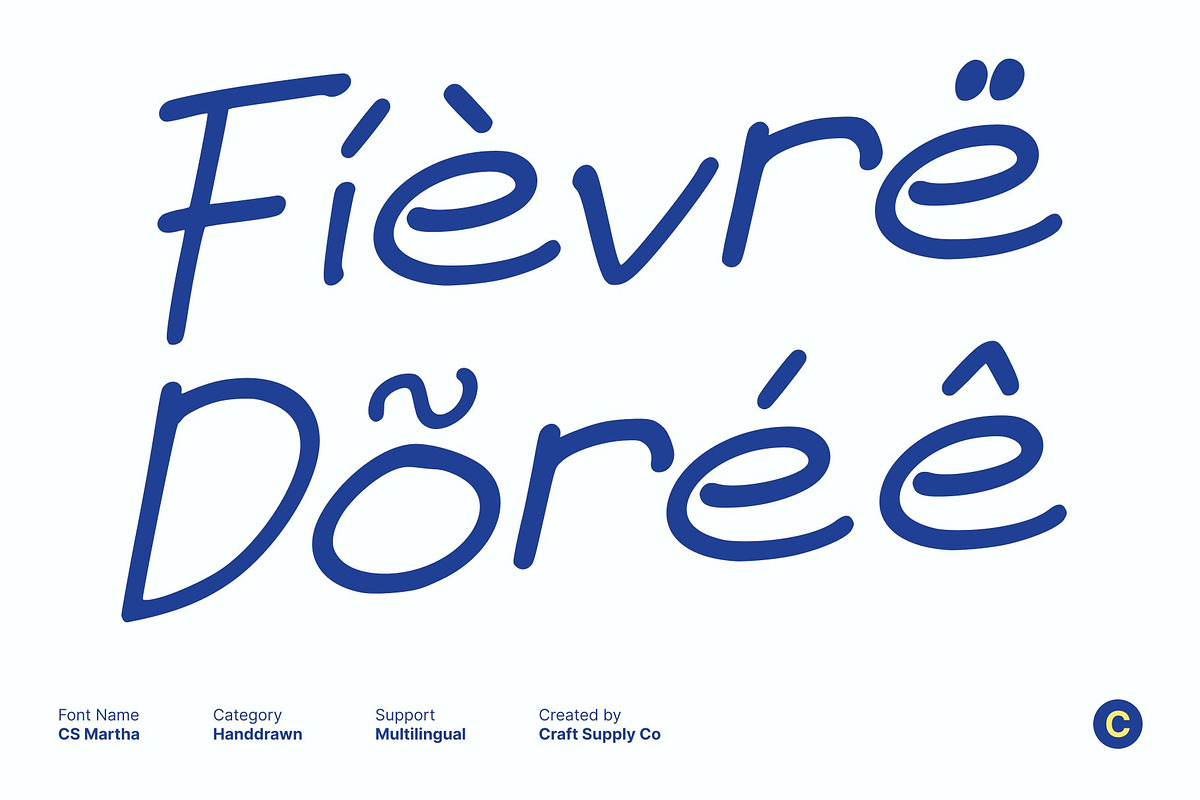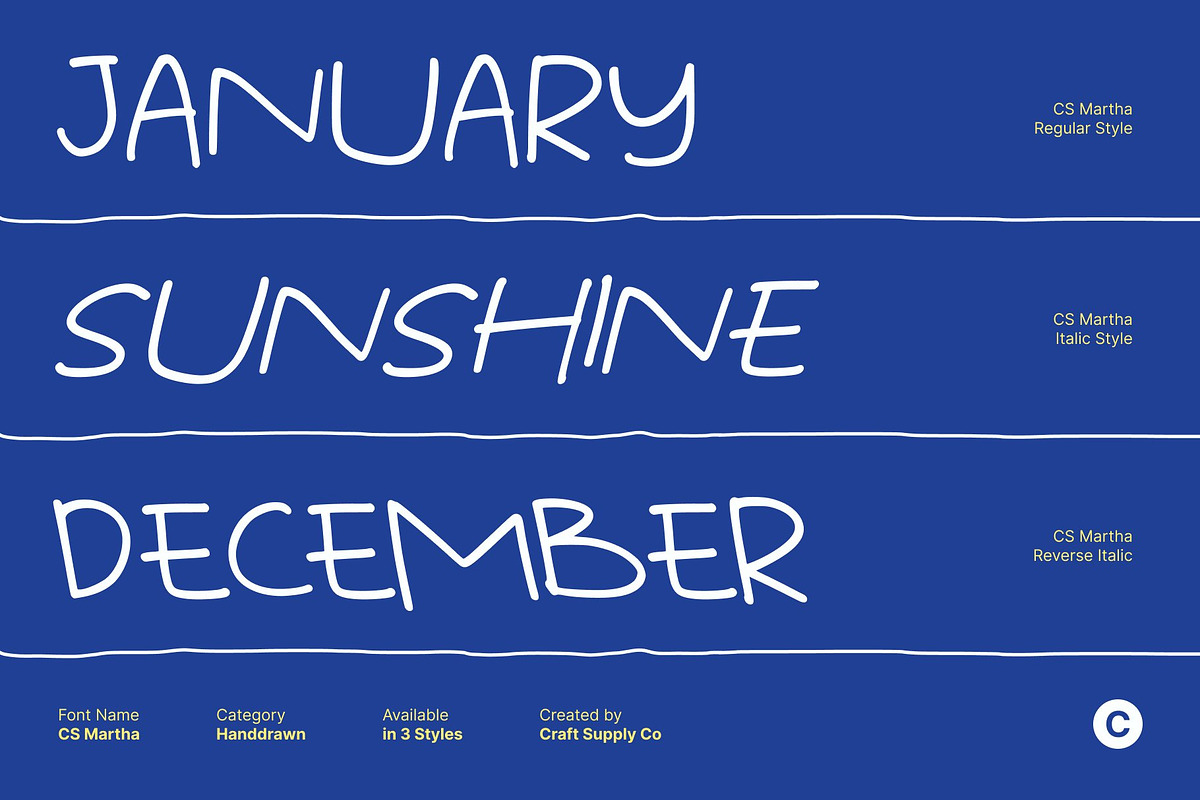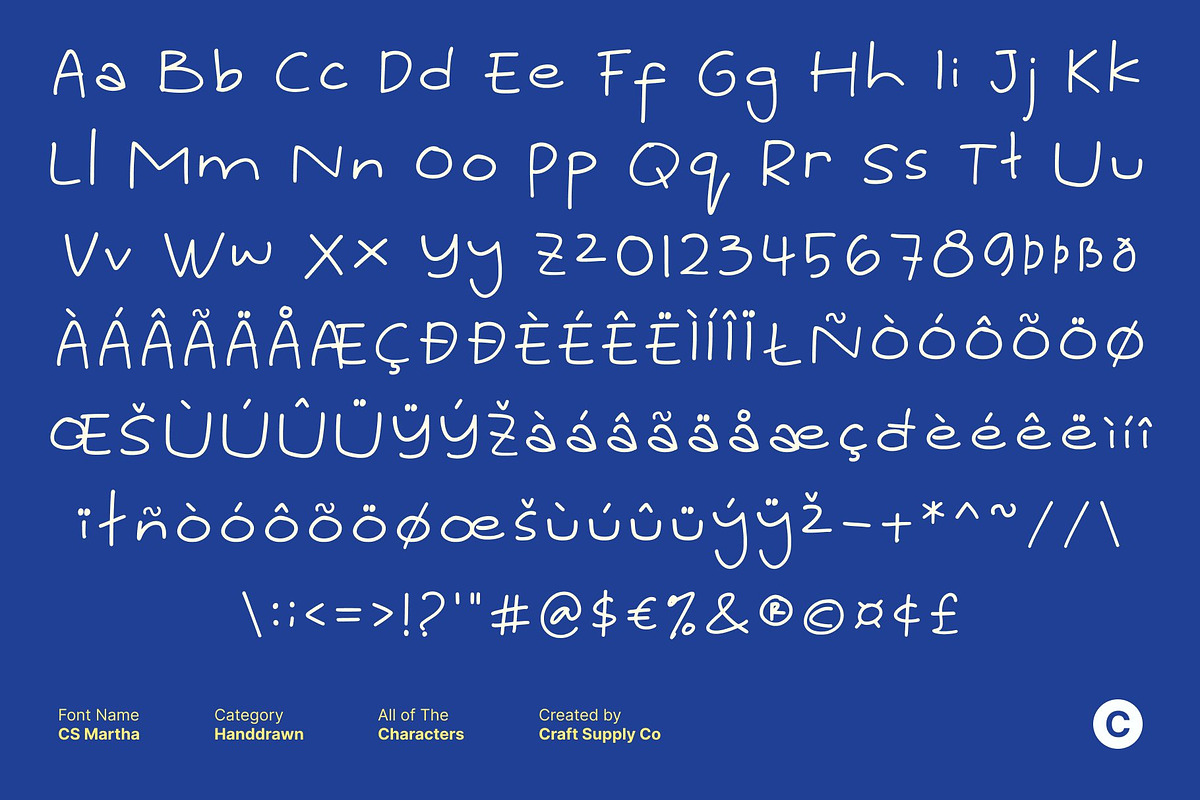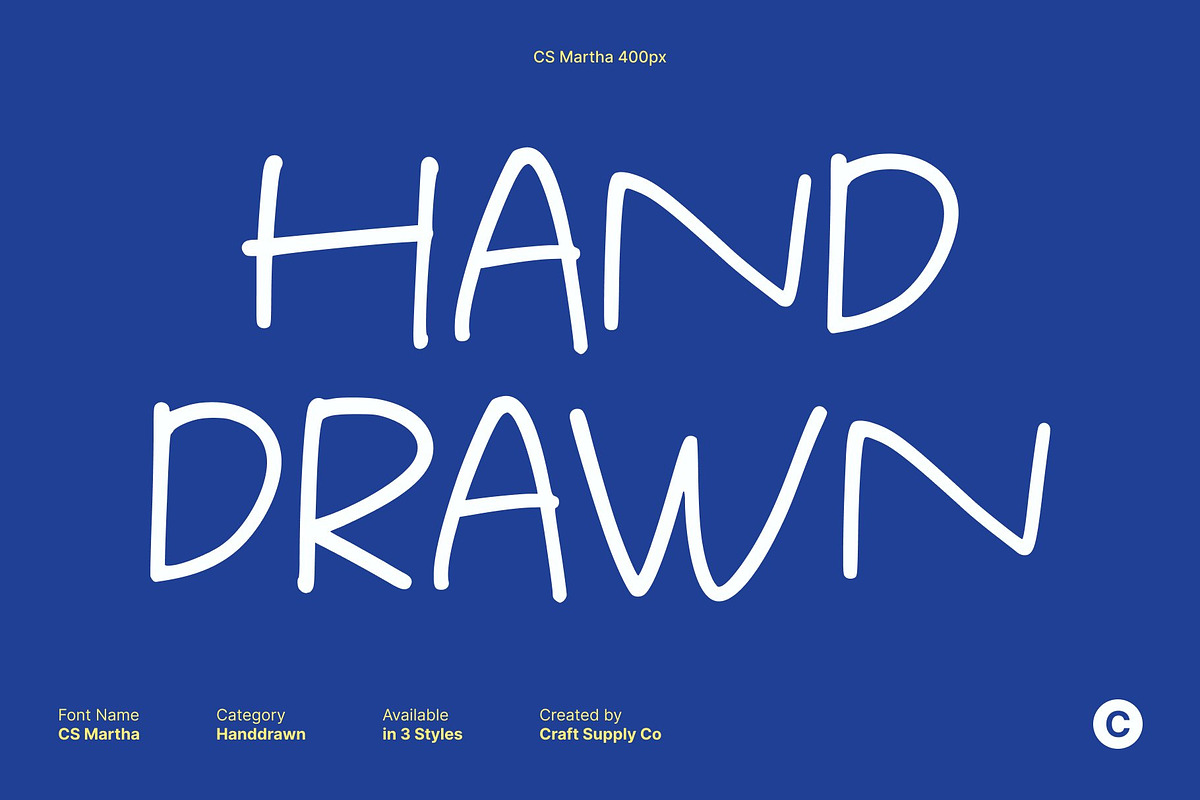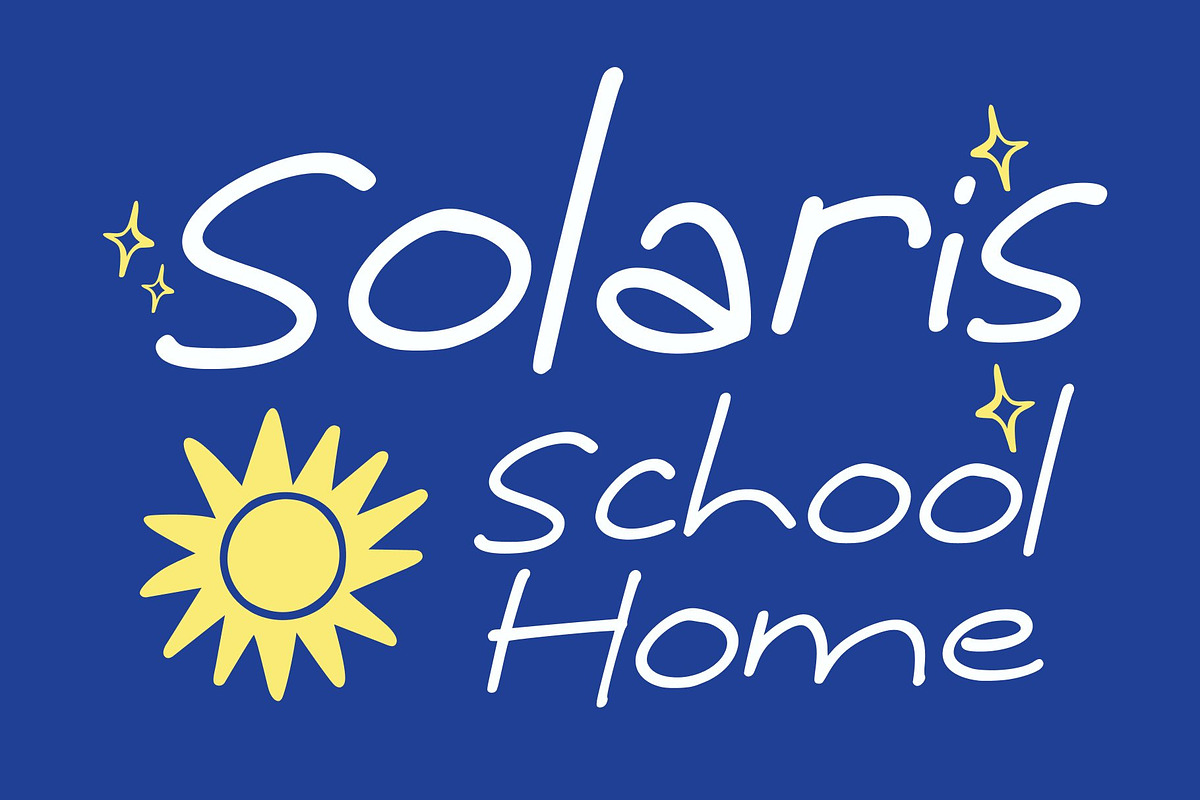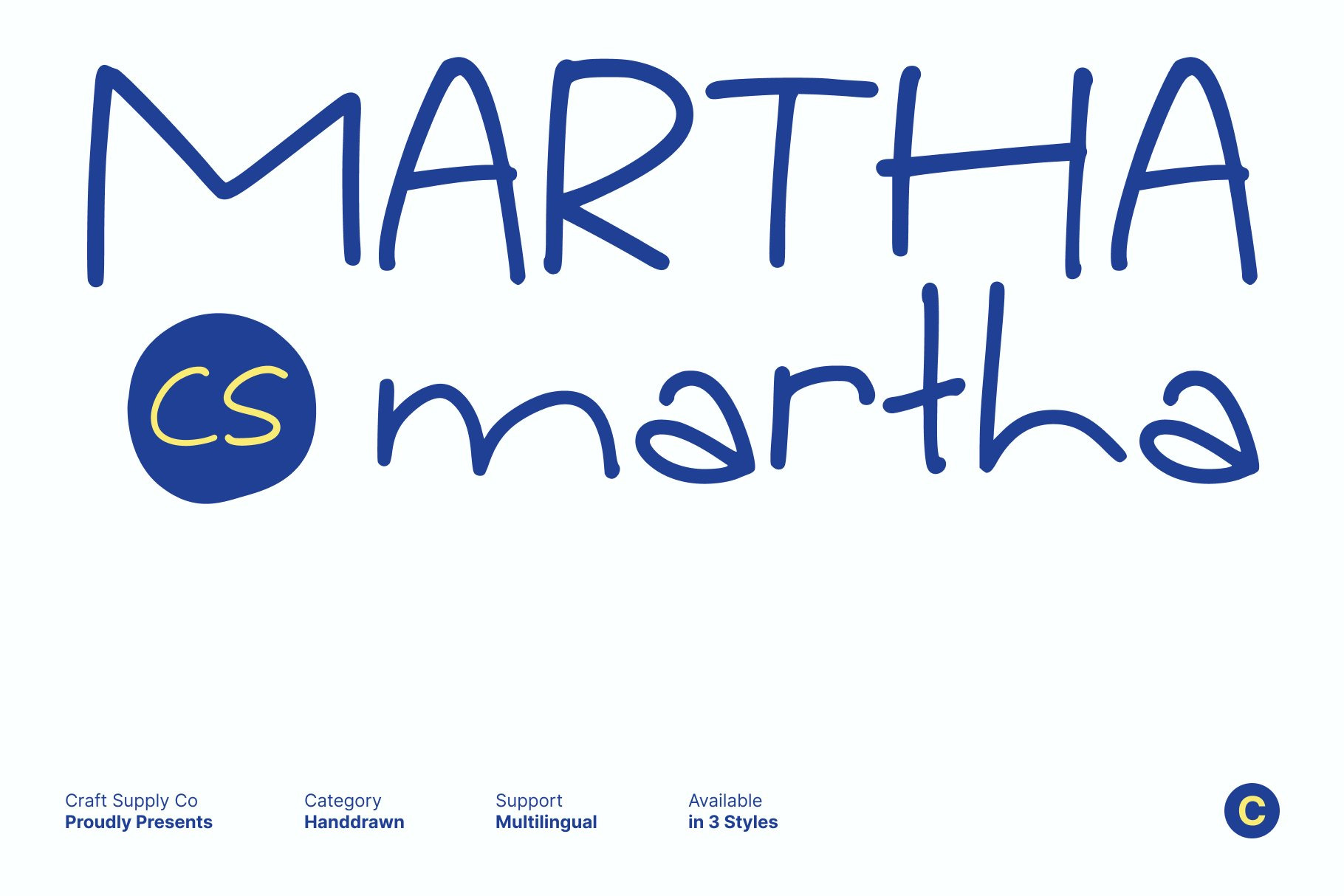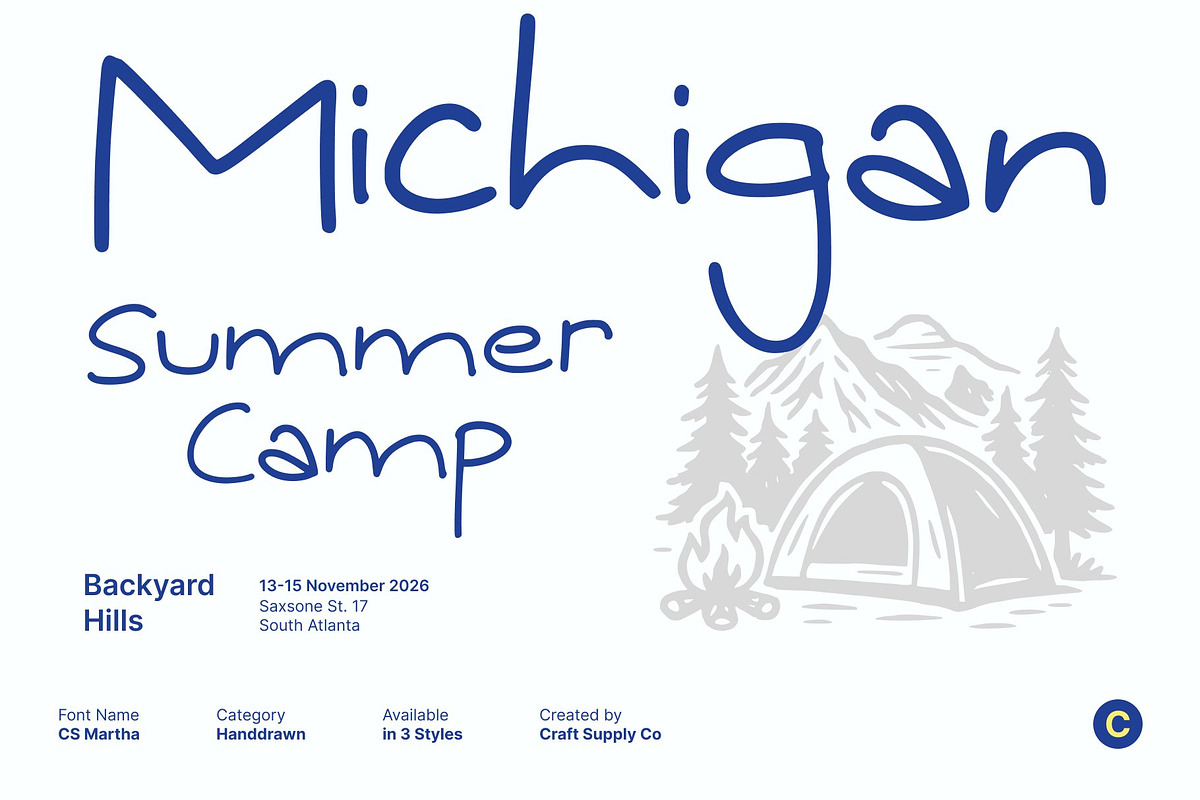
CS Martha – Handwritten Font
CS Martha – Fun, Expressive, and Full of Handwritten Charm
Expressive Handwritten Style with Natural Warmth This is a fun handwritten font crafted to capture the lively charm of natural pen strokes. Every letter flows with spontaneity and personality, giving your designs a warm and authentic feel. The playful movement within each character adds an inviting, human touch perfect for creative projects that need sincerity, friendliness, and expressive flair.
Lively Strokes That Bring Text to Life With its dynamic curves and casual rhythm, turns simple text into a visually engaging experience. The handwritten texture preserves imperfect beauty, enhancing your message with personality and emotional appeal. Whether you’re creating quote designs, book covers, or social media content, the font’s free-flowing structure delivers clarity while maintaining its artistic charm.
Perfect for Personal Branding and Creative Projects This font shines in design work that embraces creativity and individuality. Use it for personal branding that feels genuine and approachable, or apply it to book titles, journals, and storytelling layouts that need warmth and expressiveness. Its handcrafted appeal also makes it ideal for fun design concepts, playful posters, lifestyle graphics, and casual invitations.
Versatile, Friendly, and Creative Beyond its expressive style, this font offers versatile usability for both digital and print applications. It works beautifully with colorful palettes, textured backgrounds, and creative compositions. Wherever you need a font that balances charm with readability, becomes the perfect companion.